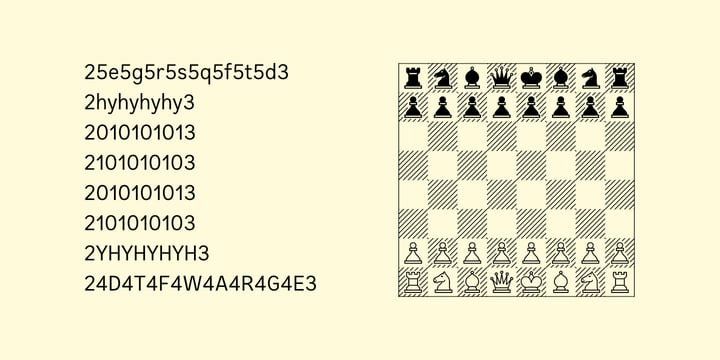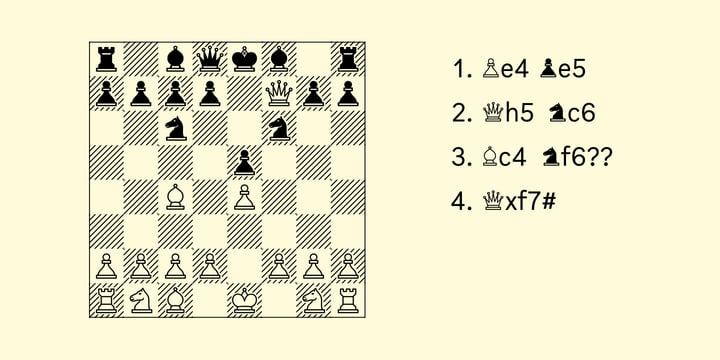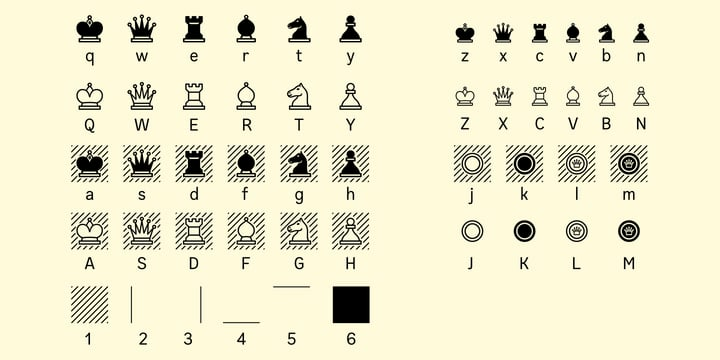
Chessnota Font
Chessnota FontChessnota is a font suitable for the design of chess schemes. It includes original graphic images of chess pieces as well as checkers. Smaller pieces are placed at the level of the text string in order to replace letters in chess notation. It can be used for printing of chess magazines, books, in any design of schemes on websites.